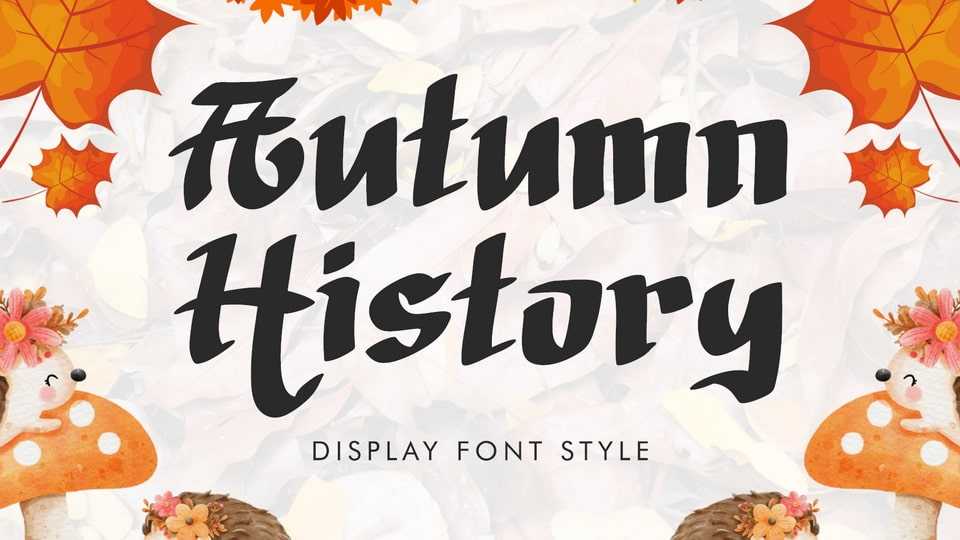
Download Autumn History font, a bold and nostalgic display typeface that blends vintage flair with seasonal charm. Autumn History delivers character and warmth with every letter.